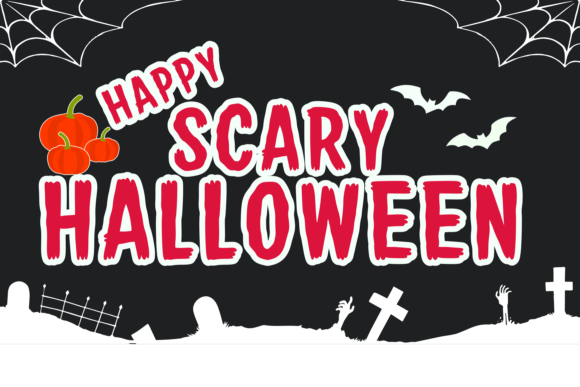
Get Ready to Cast a Spell with the Happy Scary Halloween Font
Have you ever been working on a Halloween project, only to find yourself stuck on the perfect font to capture the eerie atmosphere? We’ve all been there, searching high and low for that one font that screams “Happy Scary Halloween” and makes our designs truly unforgettable. Well, we’ve got the solution for you – a bold, spooky font that’s sure to send chills down the spines of your audience.
The Happy Scary Halloween Font is a game-changer for designers, adding an instant touch of horror to any project. Its thick, drippy letters resemble melting slime or dripping blood, making it perfect for Halloween party invitations, scary T-shirt designs, and haunted house flyers. Whether you’re a seasoned designer or a DIY enthusiast, this font is sure to bring your spooky creations to life.
- Font Family: Happy Scary Halloween, with multiple font styles (Regular, Italic, Bold, Bold Italic) for versatility.
- Character Count: A large character set, including uppercase and lowercase letters, numbers, punctuation marks, and special characters, making it suitable for various applications.
- Unique Characteristics: Distinctive, spooky, and playful design elements, such as creepy creatures, jack-o’-lanterns, and other Halloween-themed motifs, adding a touch of whimsy to any project.
Happy Scary Halloween Font Review
When I first laid eyes on the Happy Scary Halloween Font, I couldn’t help but feel a spark of excitement ✨. The playful, hand-drawn style and the creative use of bold, colorful letters immediately caught my attention. The font is perfect for creating eye-catching Halloween-themed designs, such as party invitations, social media graphics, or even product packaging.
- Unique and quirky design ✨
- Wide range of characters, including numbers and punctuation
- Perfect for adding a spooky touch to your designs
- Great for creating a cohesive look across multiple design elements
However, I did encounter a few limitations ⚠️:
- Limited font size options, which can make it difficult to scale
- No bold or italic font styles available
- Some letters may not be easily legible at smaller sizes
Overall, I think the Happy Scary Halloween Font is a great choice for anyone looking to add a playful, spooky touch to their designs. While it may have some limitations, its unique style and wide range of characters make it a great addition to any designer’s toolkit.
Tips for Getting the Most Out of Happy Scary Halloween Font
For the best results, use Happy Scary Halloween Font for Halloween-themed designs, such as invitations, posters, and social media graphics. You can also use it to add a spooky touch to your branding or marketing materials.
Happy Scary Halloween Font is perfect for:
- Halloween party invitations
- Spooky social media graphics
- Haunted house or attraction branding
- Horror movie or TV show promotions